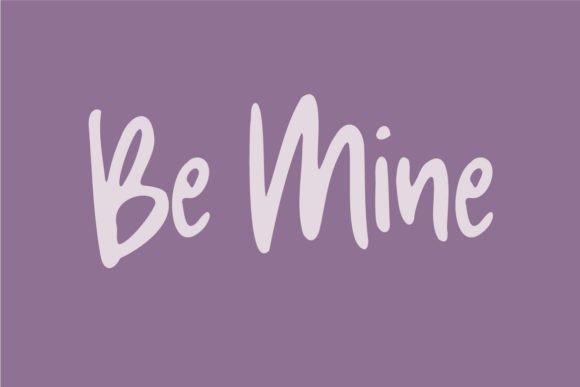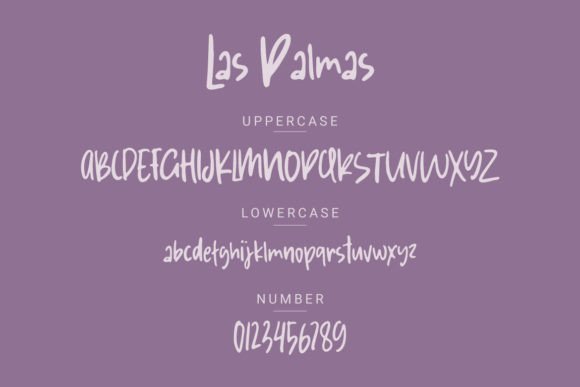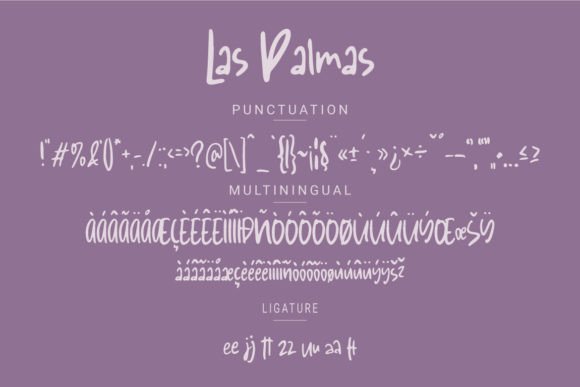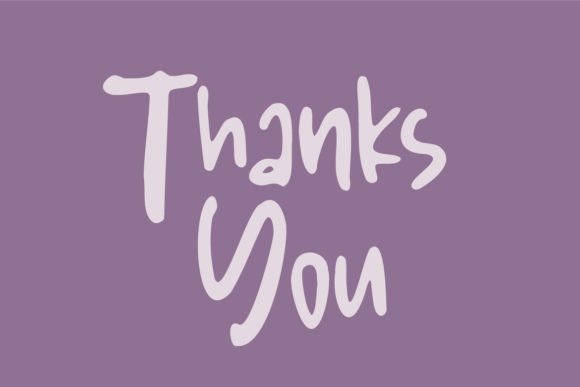
Introduction to Las Palmas Font
Las Palmas is a casual, handwritten font that exudes a relaxed, beachy vibe.
Its organic, flowing strokes give it a natural, almost sketched appearance The fontโs overall feel is friendly, inviting, and reminiscent of handwritten notes or postcards.
Key Features of Las Palmas Font
Why Choose Las Palmas Font?